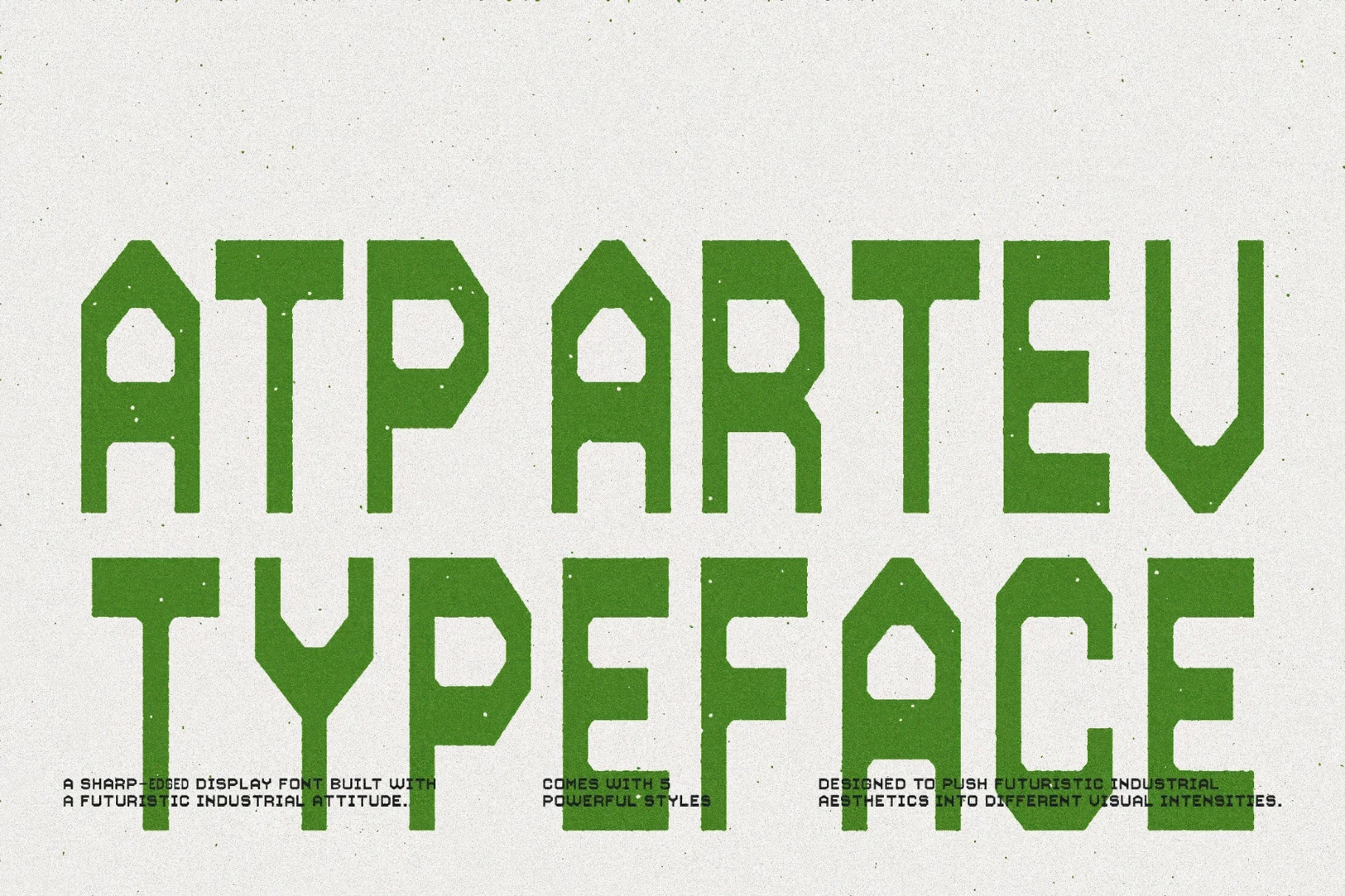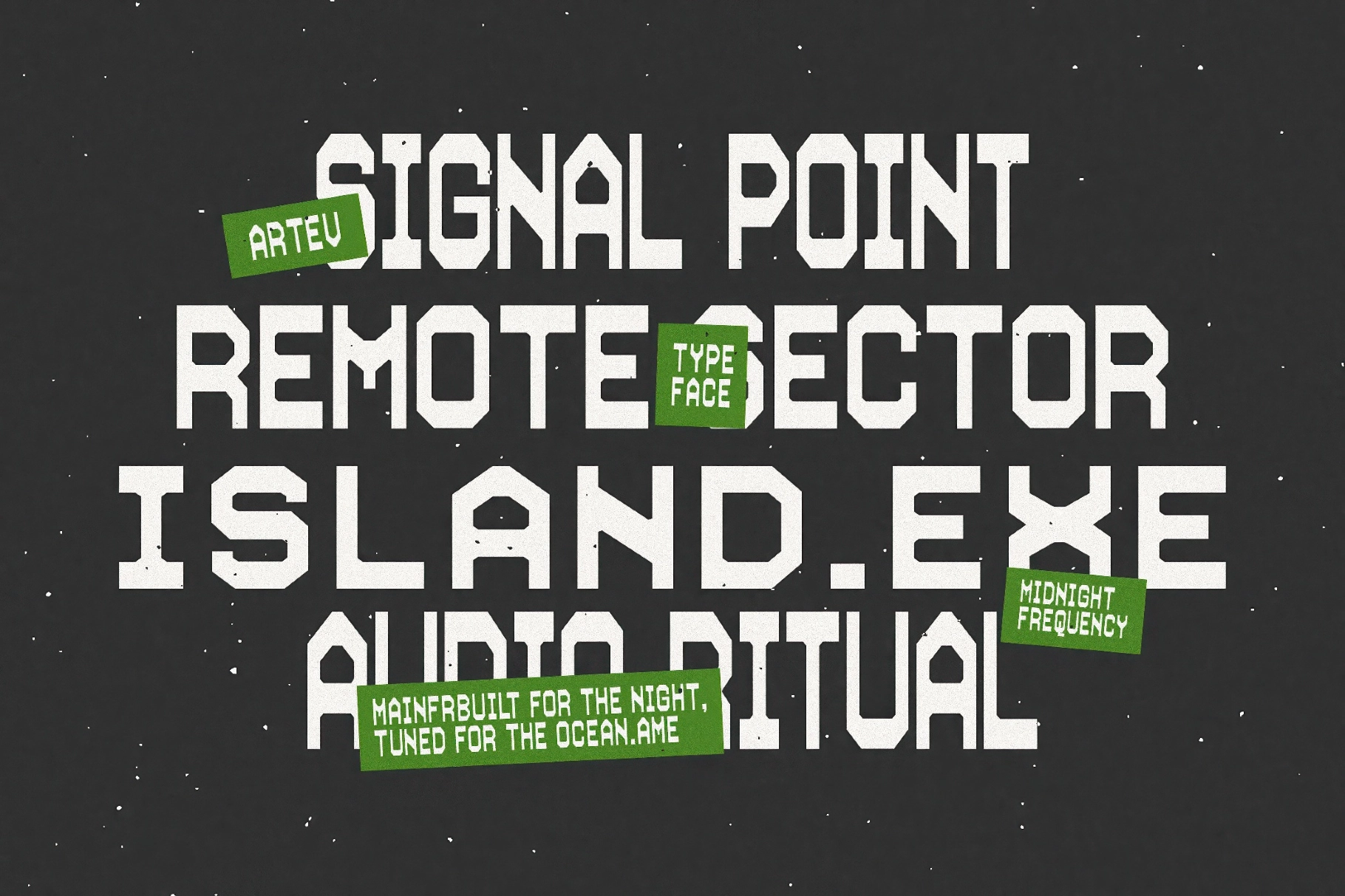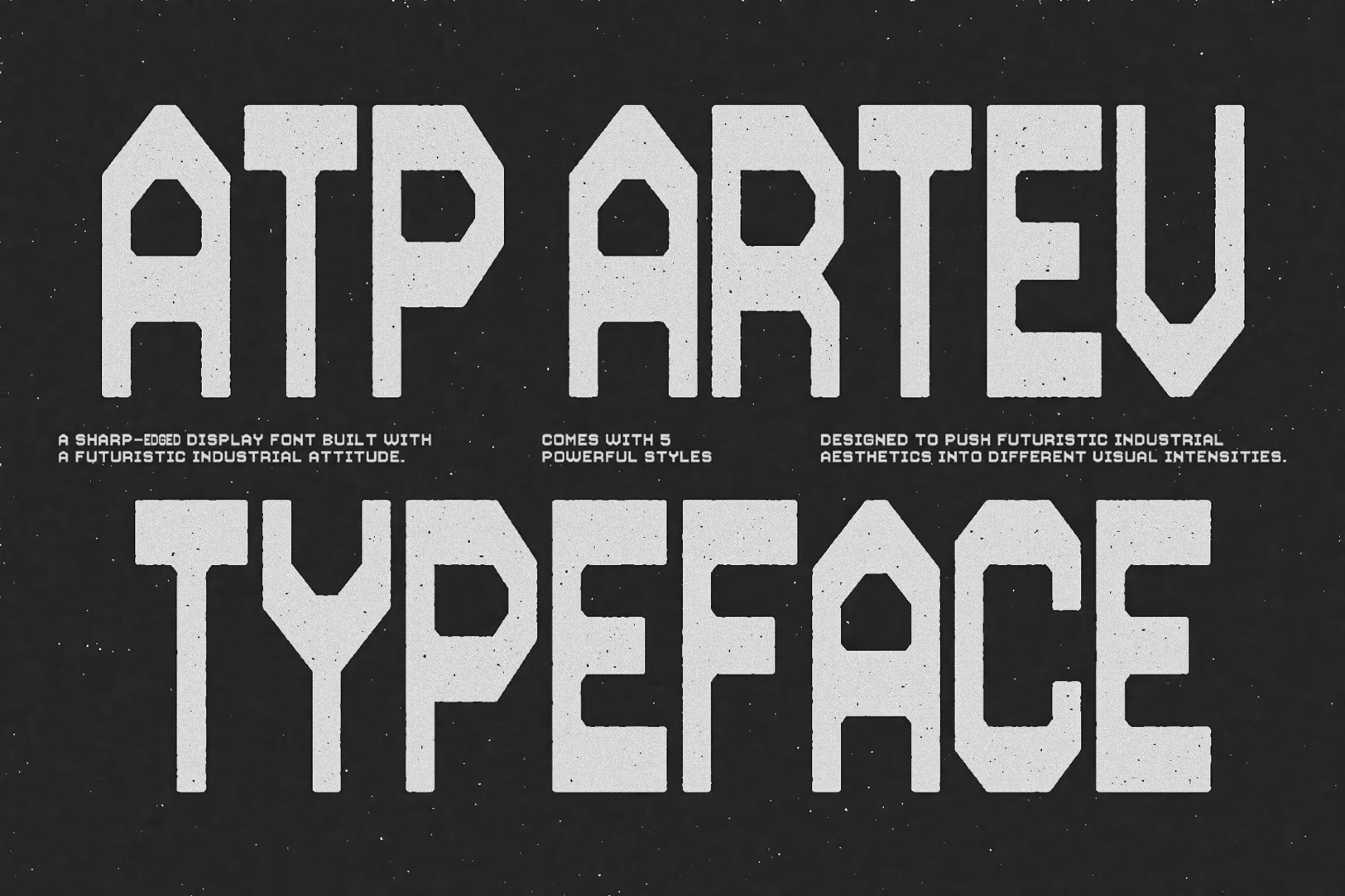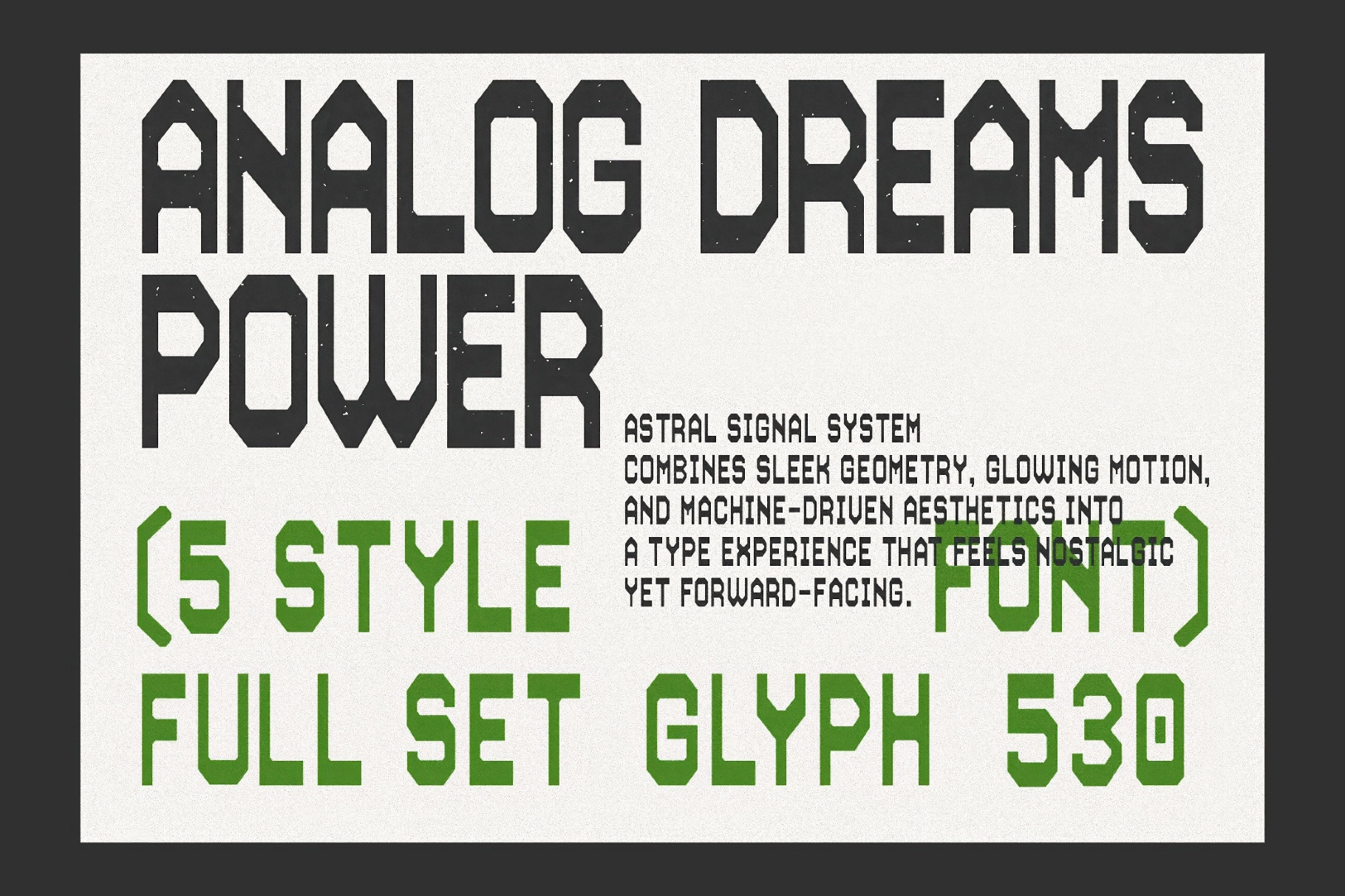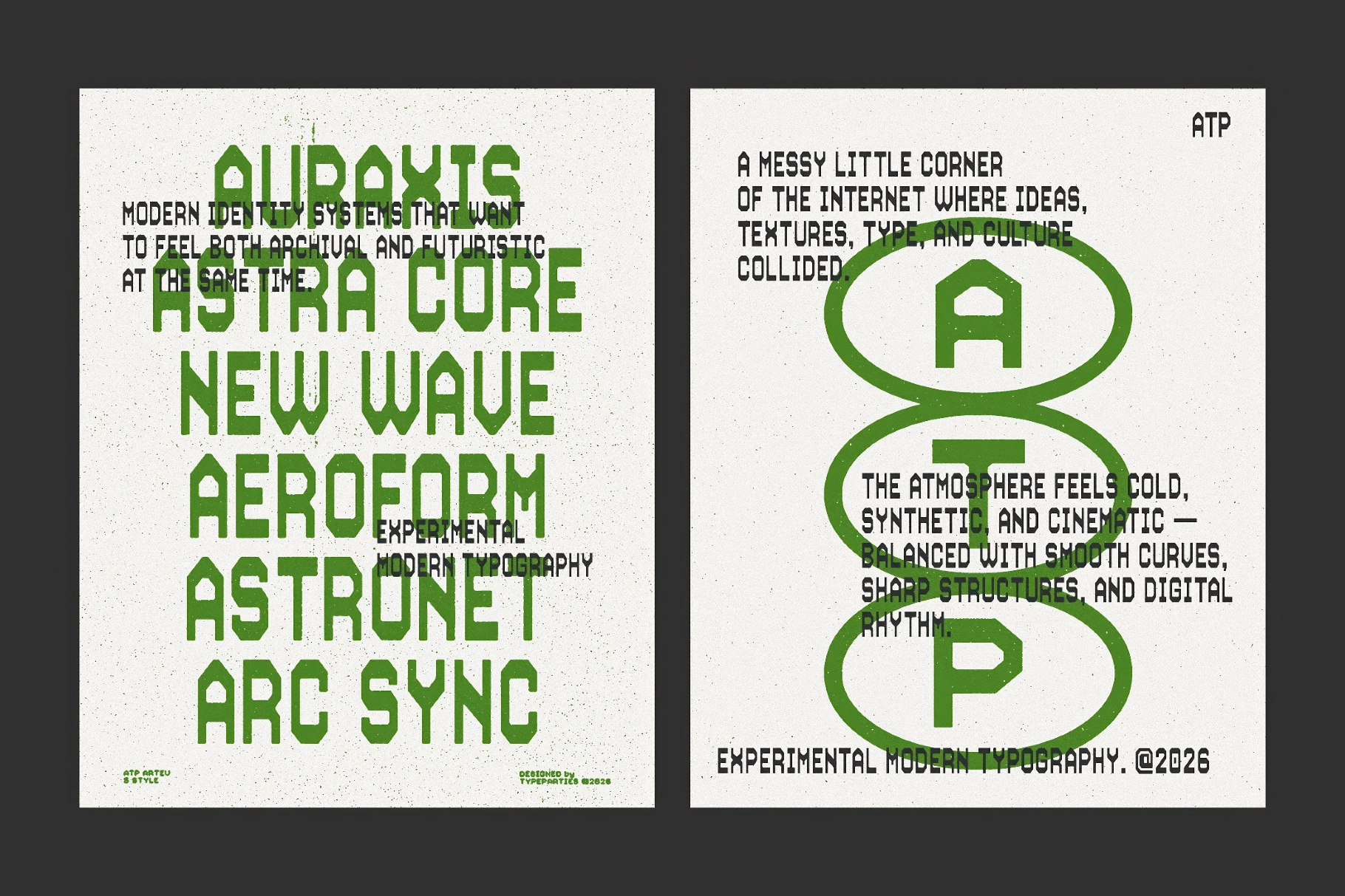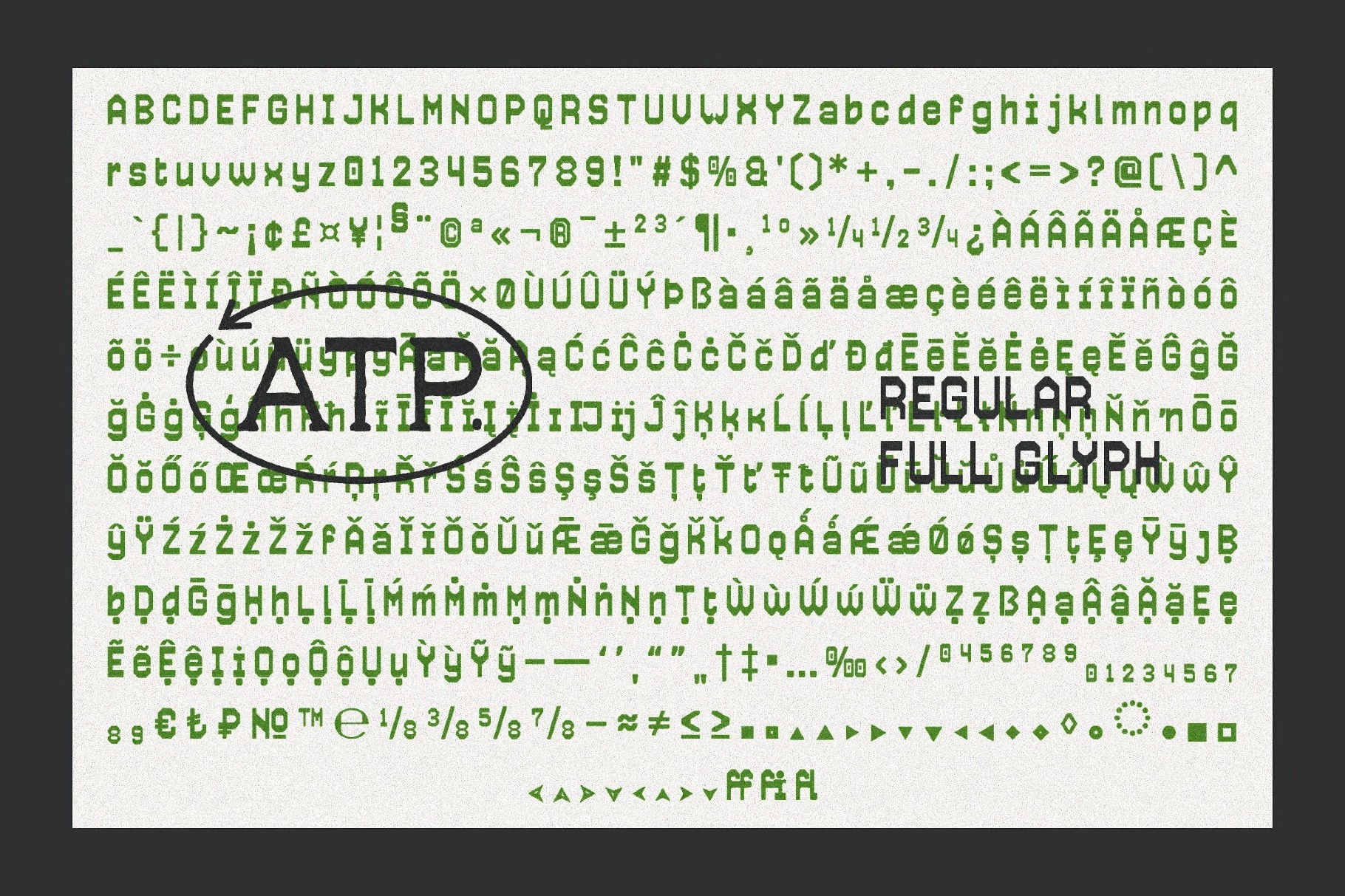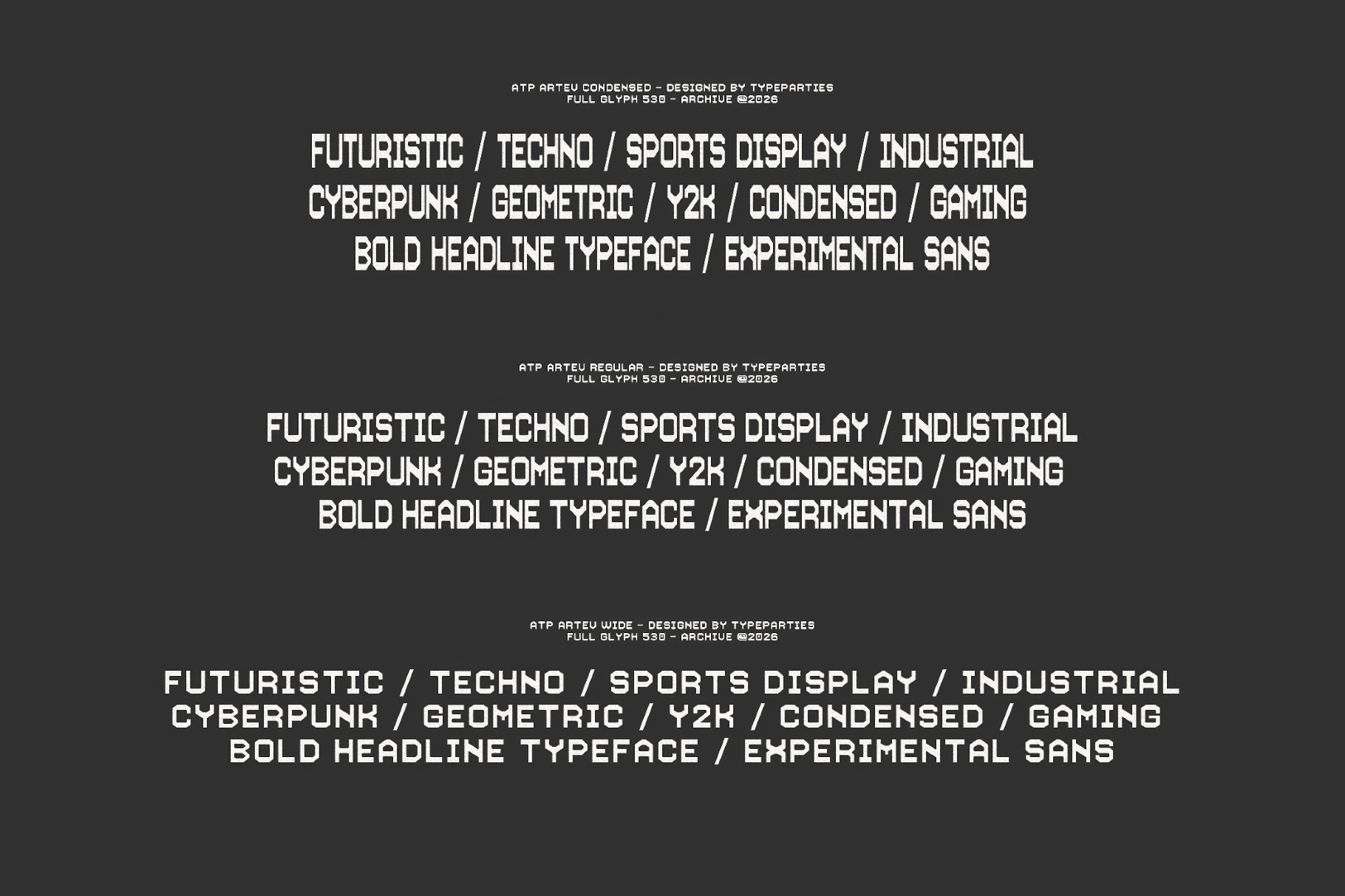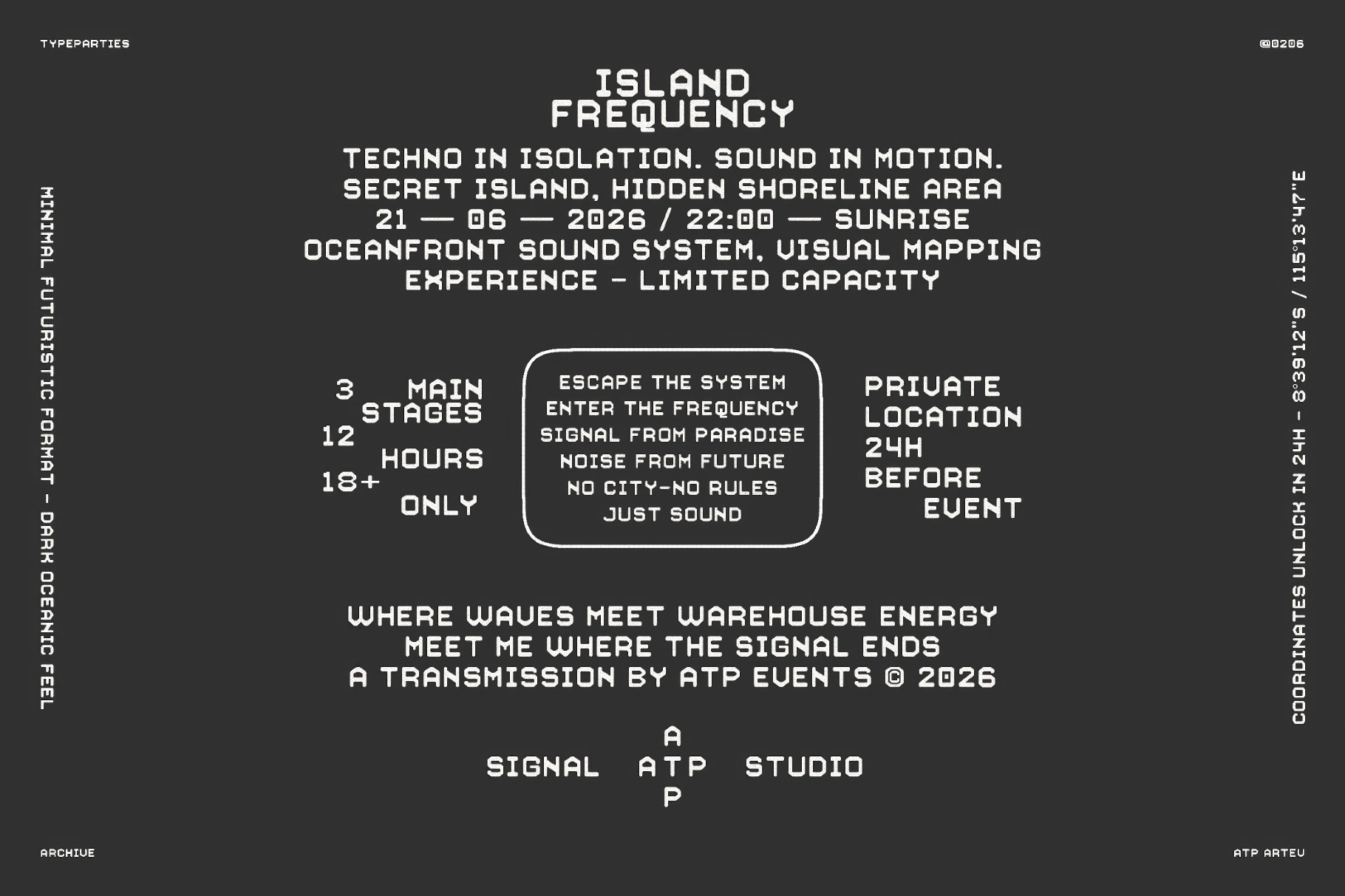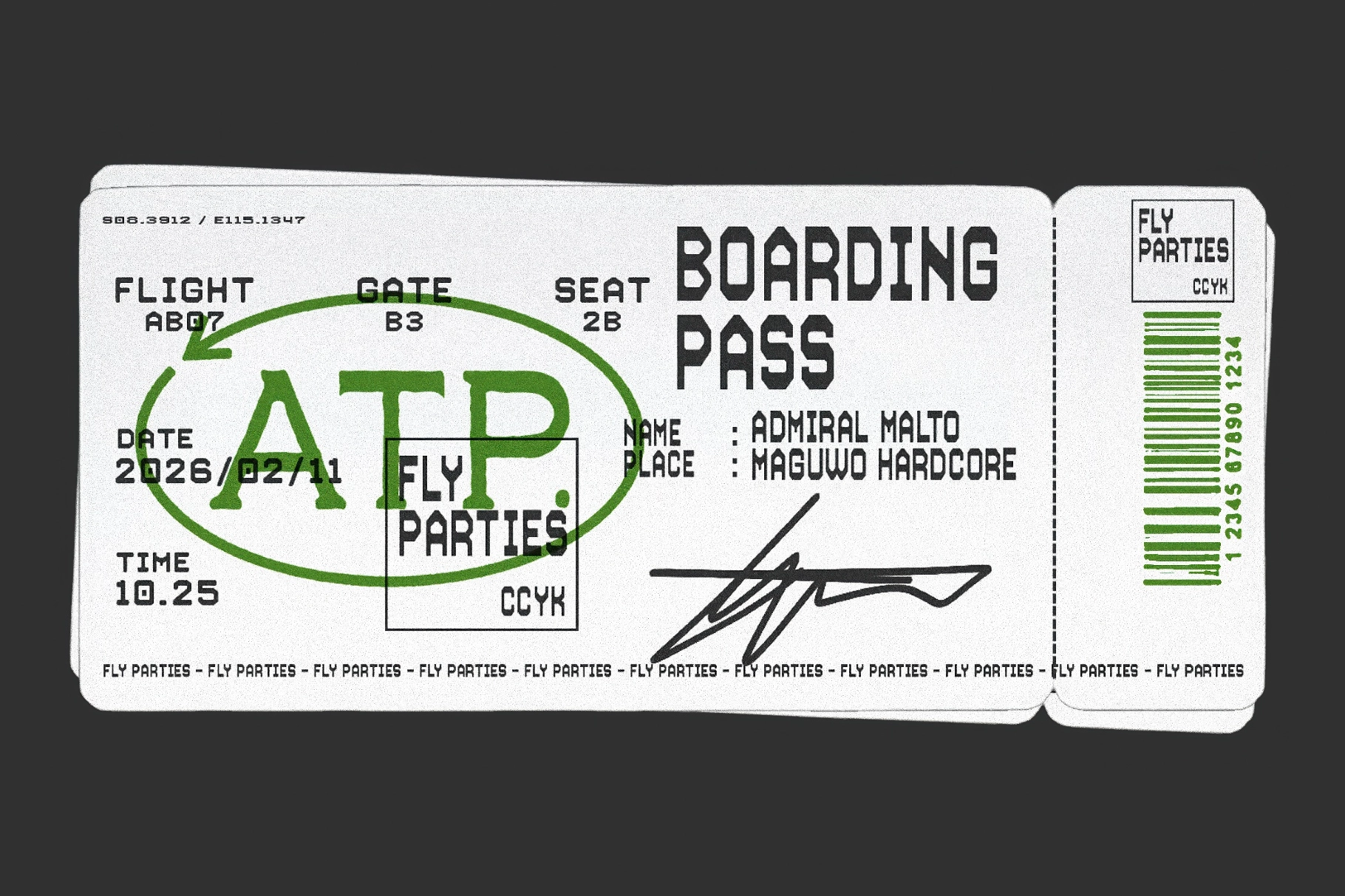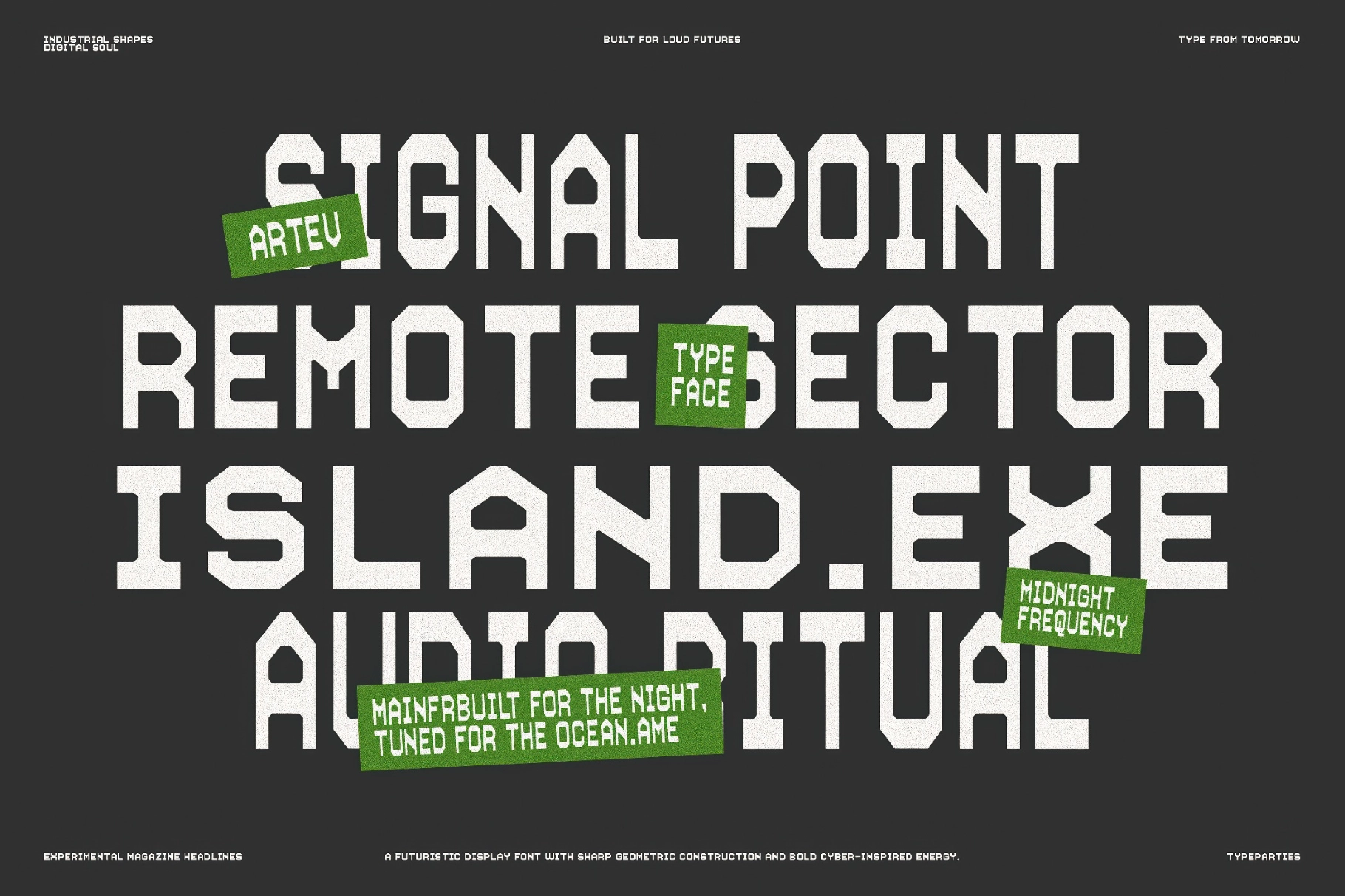
Artev – Geometric Sans Serif Font
ATP Artev
Condensed Rough
Condensed
Rounded
Wide Rounded
Wide
Artev takes a clean geometric sans and runs it through decay: every stroke carries pitted edges and eroded corners, like the letterforms have weathered years of exposure before landing on the page. The construction stays strictly geometric underneath the texture, circles and straight strokes holding their shape even as the surface breaks apart into speckled noise.